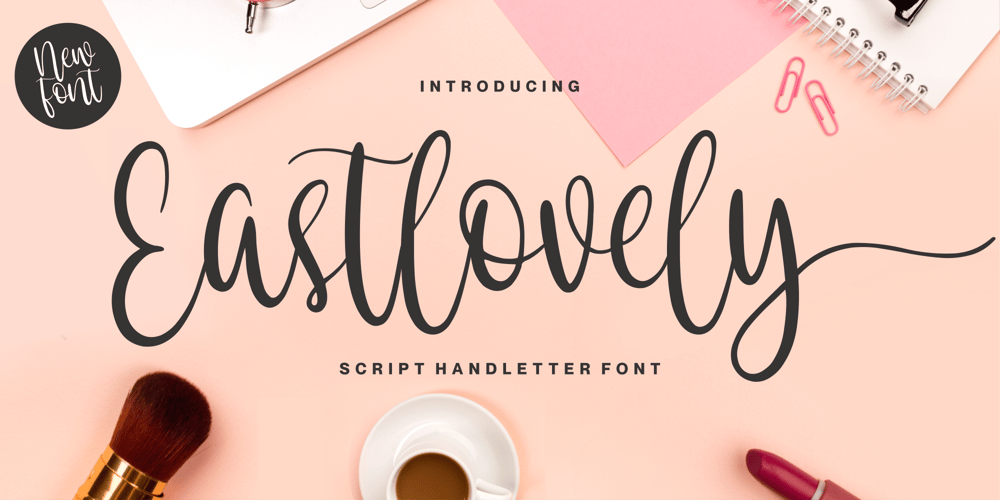
Eastlovely Font Family was designed by Fachrizal Yusuf and published by Allouse Studio. Eastlovely contains 1 styles and family package options. Proudly Presenting, Eastlovely a Script Handletter FontEastlovely is perfect for any titles, logo, product packaging, branding project, megazine, social media, wedding, or just used to express words above the background.Eastlovely come with Multi-Lingual Support.Enjoy the font, feel free to comment or feedback, send me PM or email.